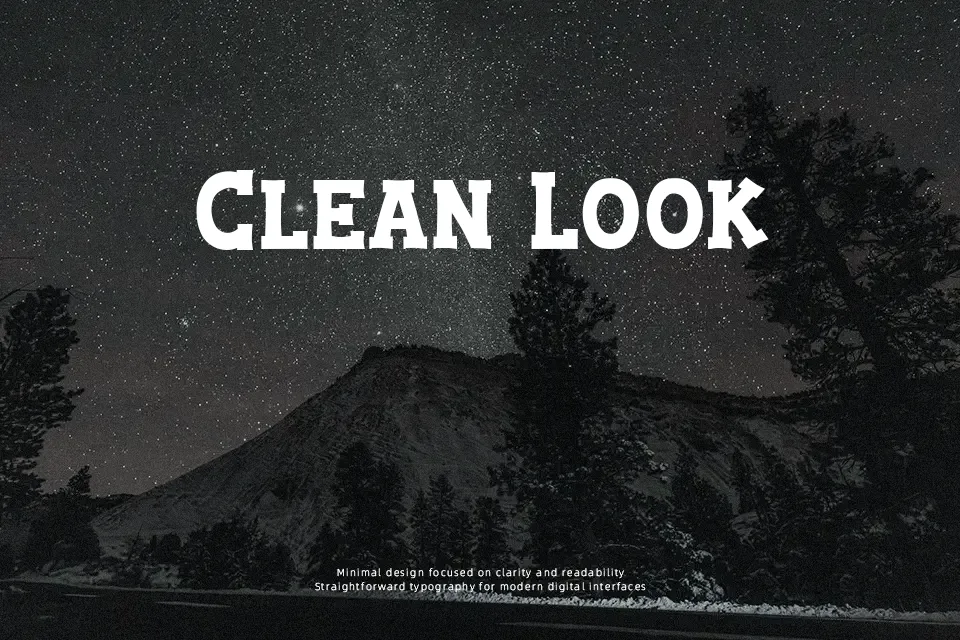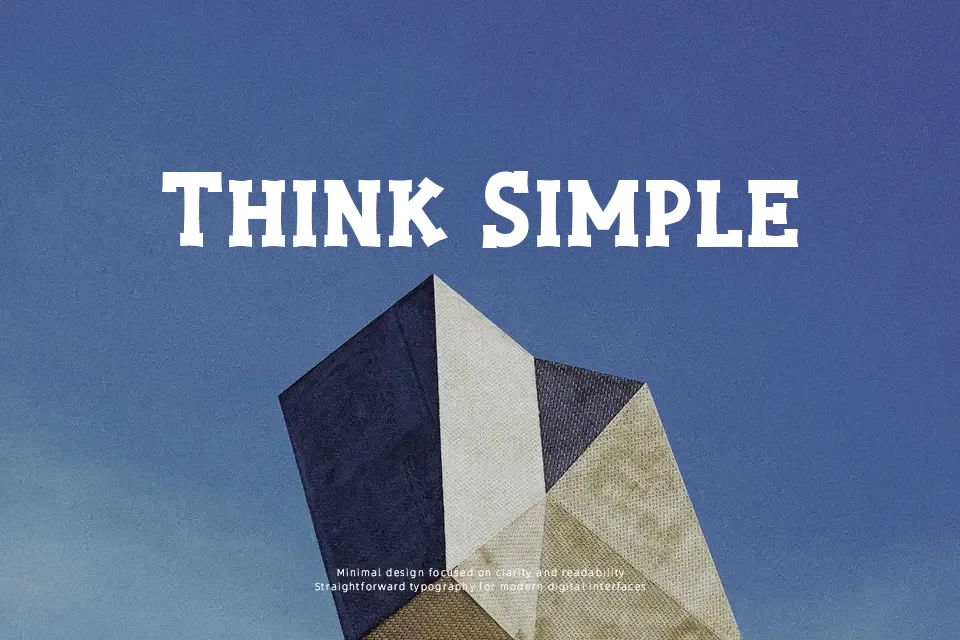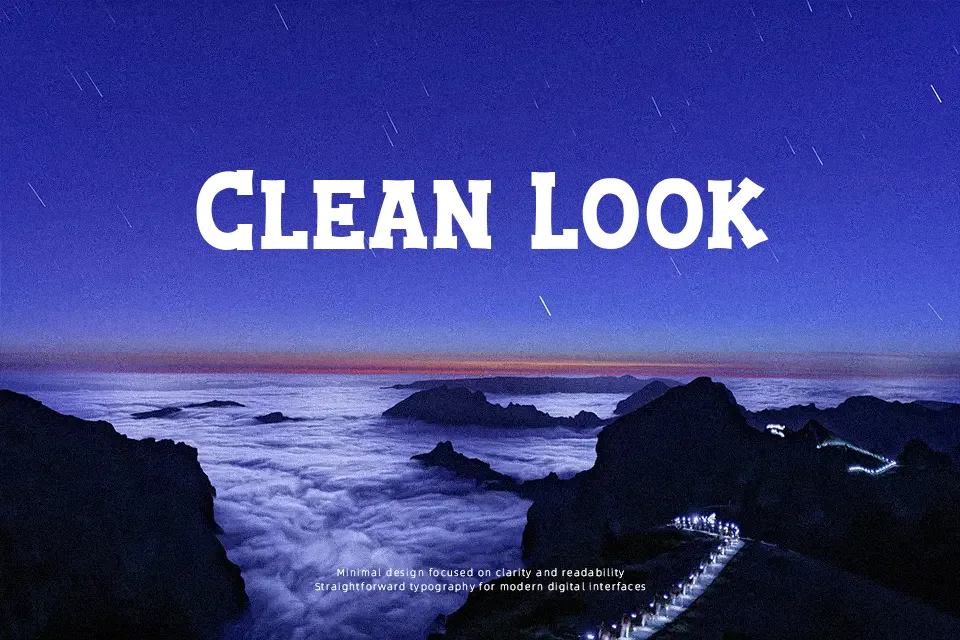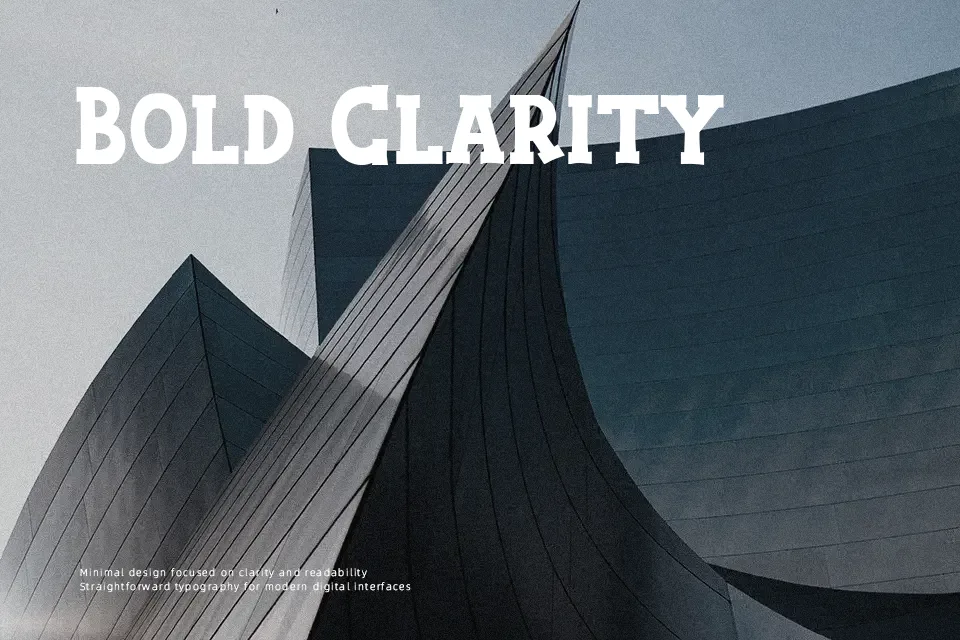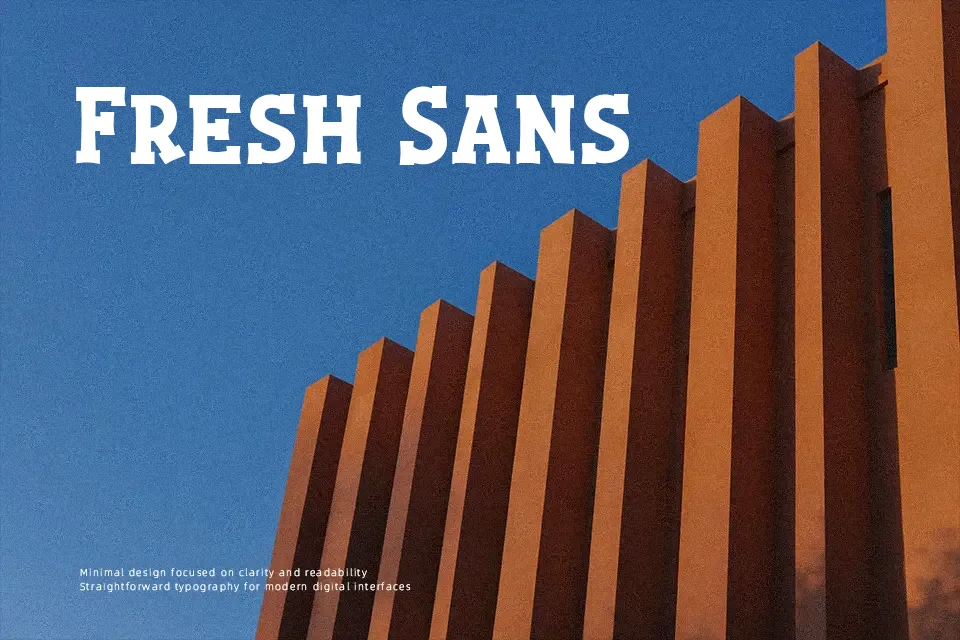
Sport Day Font
Sport Day Font features robust, blocky slab serifs paired with unyielding geometric contours and uniform stroke thickness across its capital letterforms. The characters display wide horizontal proportions with balanced, disciplined spacing that preserves clean separation across large scale applications. Sturdy horizontal brackets and squared terminal treatments lend the typeface authoritative presence, making it remarkably effective for athletic jerseys, varsity apparel, and dynamic poster headlines. The bold visual weight ensures instant recognition in physical environments, though the solid, dense construction reduces comfort during continuous reading and causes intricate details to blur within small digital interface captions.
Best For: athletic team apparel, collegiate merchandise, sports event posters, stadium signage
Not Ideal For: continuous body text, mobile interface labels, dense editorial paragraphs